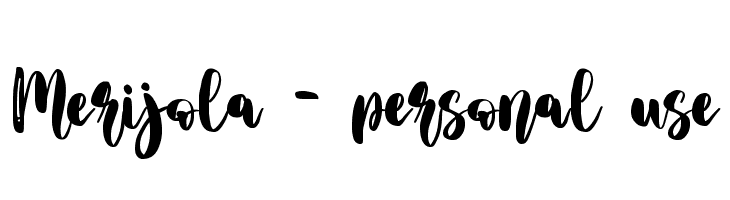
A bold, expressive handwritten font with dynamic strokes and lively movement.
A playful, hand-drawn style font with rounded, flowing letterforms.
A playful, rounded font with a friendly, handwritten style.
A bold, expressive script font with a hand-painted, artistic style.
A graceful script font with flowing, interconnected letters and high contrast strokes.
An elegant, whimsical script font with flowing, interconnected letters and decorative swirls.
A lively and elegant script font with flowing, cursive letterforms.
A bold, expressive brush script font with dynamic strokes and artistic flair.
A lively and expressive script font with bold, sweeping curves and playful flourishes.
A playful, bold, and hand-drawn style font with rounded characters.